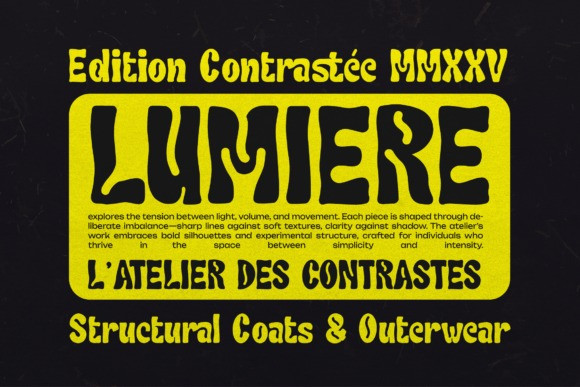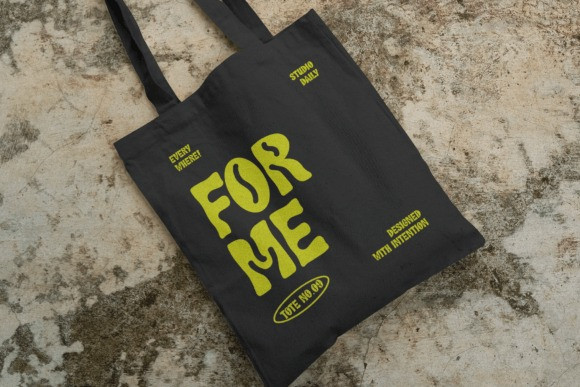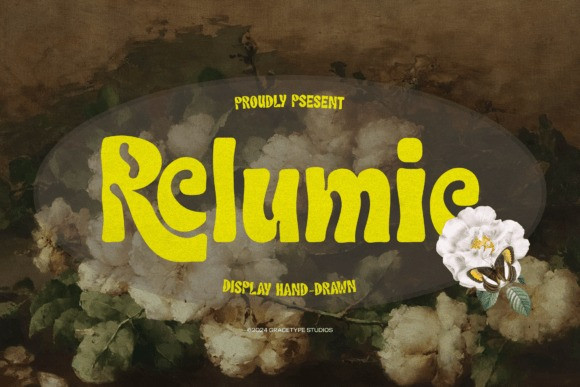
Relumie Font
Relumie Font is a fabulously fun, hand-drawn display font that radiates groovy 70s energy, featuring delightfully heavy, fluid forms and exaggerated curves that immediately command attention and evoke a sense of playful nostalgia.
This charming Relumie font is both bold and soft, with a bouncy baseline and an organic, slightly imperfect texture that confirms its handcrafted feel, making it approachable and inviting. Its extra-chunky letterforms ensure it stands out for headlines and branding with a retro twist.
The Relumie typeface is an absolute must-have for designing posters, branding for quirky businesses, vibrant social media graphics, retro packaging, and any project that needs a bold, warm, and distinctly 70s aesthetic. This cheerful display font captures the free-spirited fun of the era.